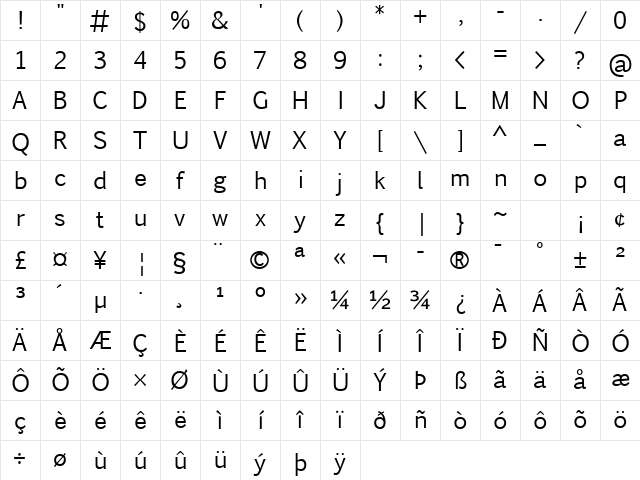
Euphemia is a composed and adaptable typeface that performs quietly and consistently across a wide range of design contexts.
Pro Tip: Use Euphemia in both headline and body roles to test its range before committing to a single application.